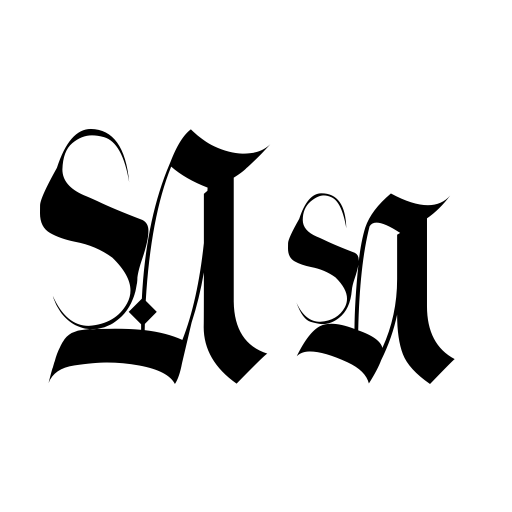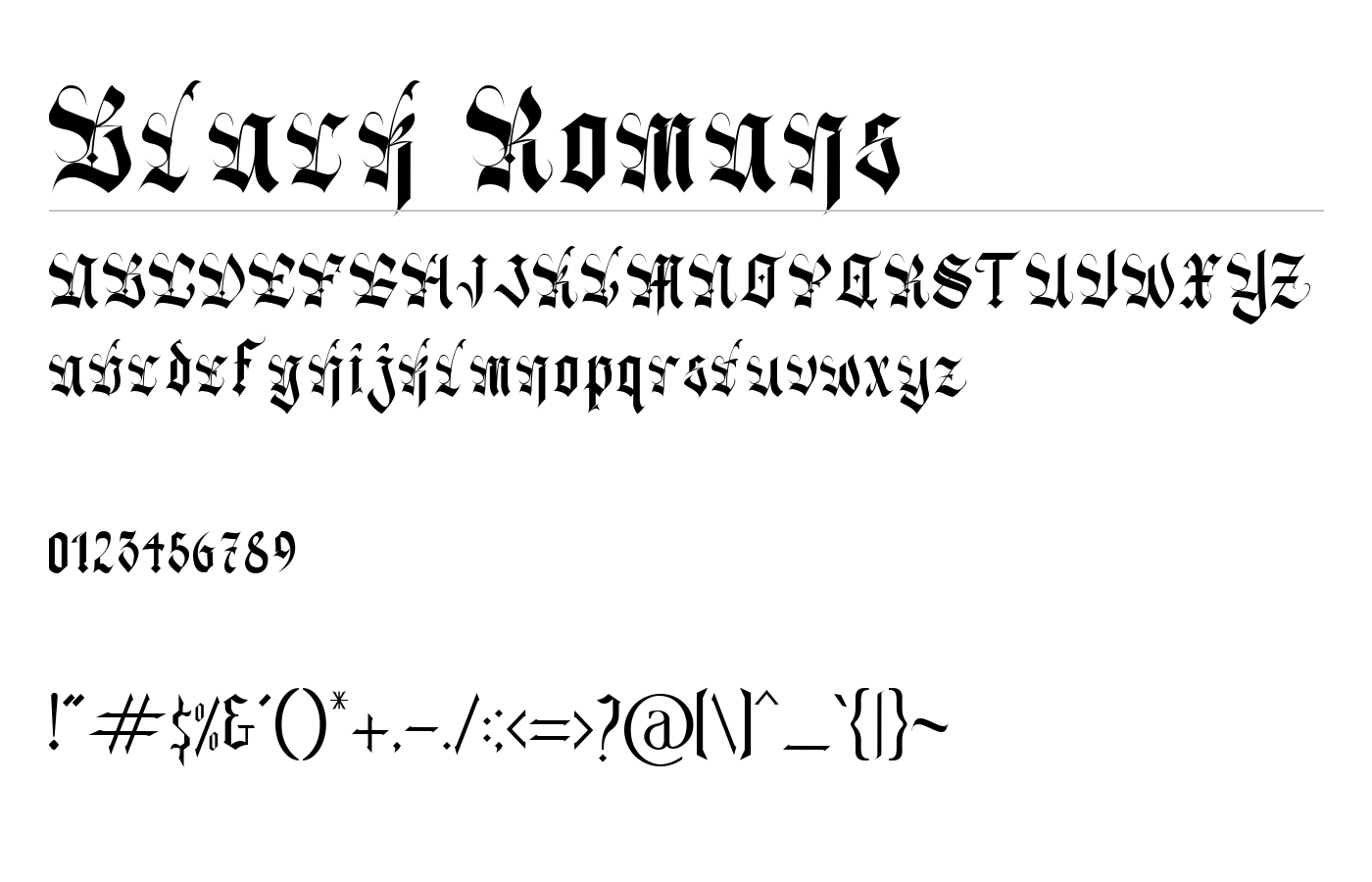
Black Romans is a bold, blackletter-style serif font with sharp, dramatic strokes and intricate details that evoke a gothic, medieval feel. Its high contrast between thick and thin lines, along with ornamental flourishes, makes it ideal for striking headlines, logos, and designs seeking an edgy, vintage, or historical vibe. This font works best in display use where its ornate character can be appreciated without sacrificing readability.
Black Romans Font
About Black Romans Font